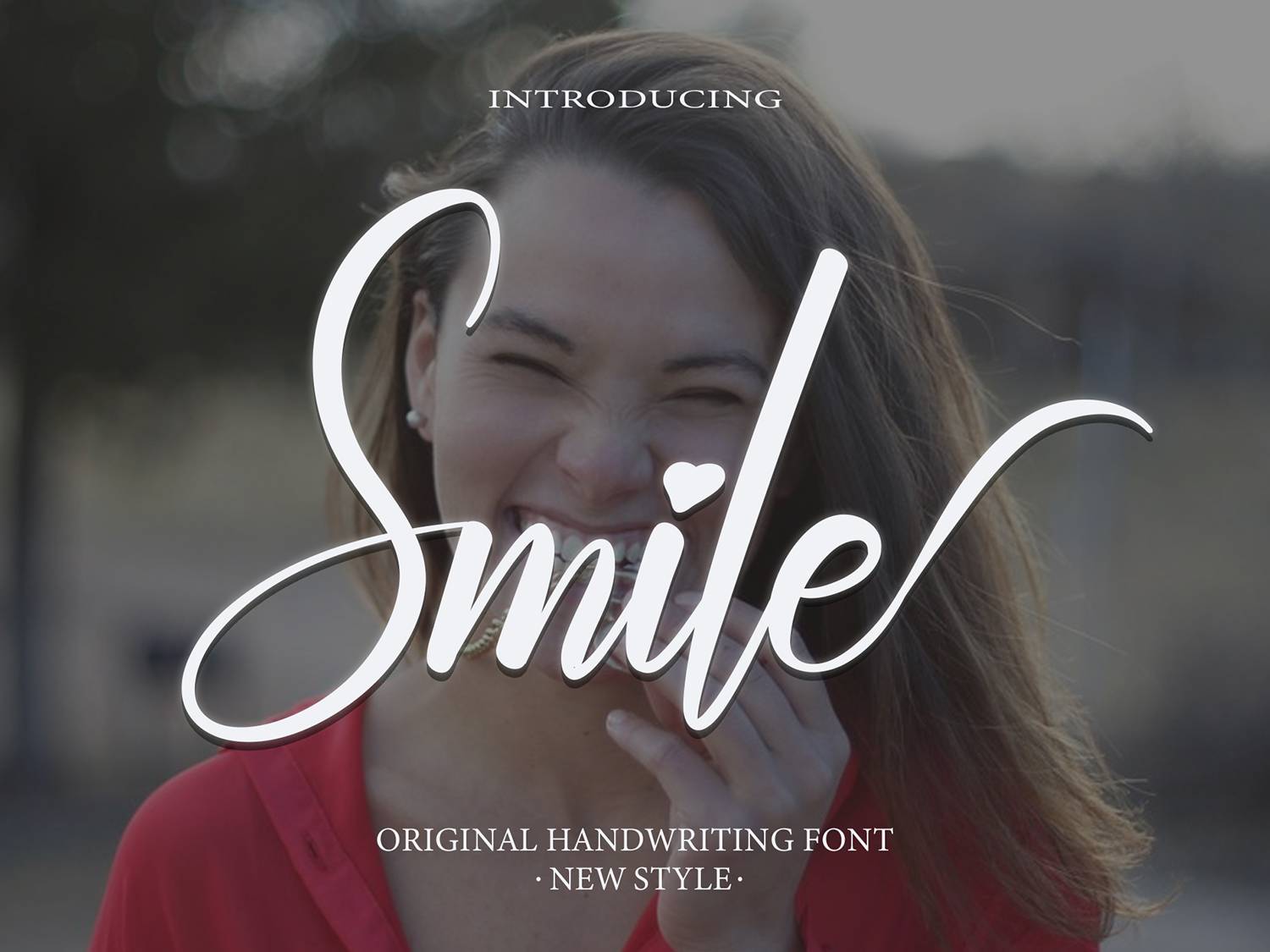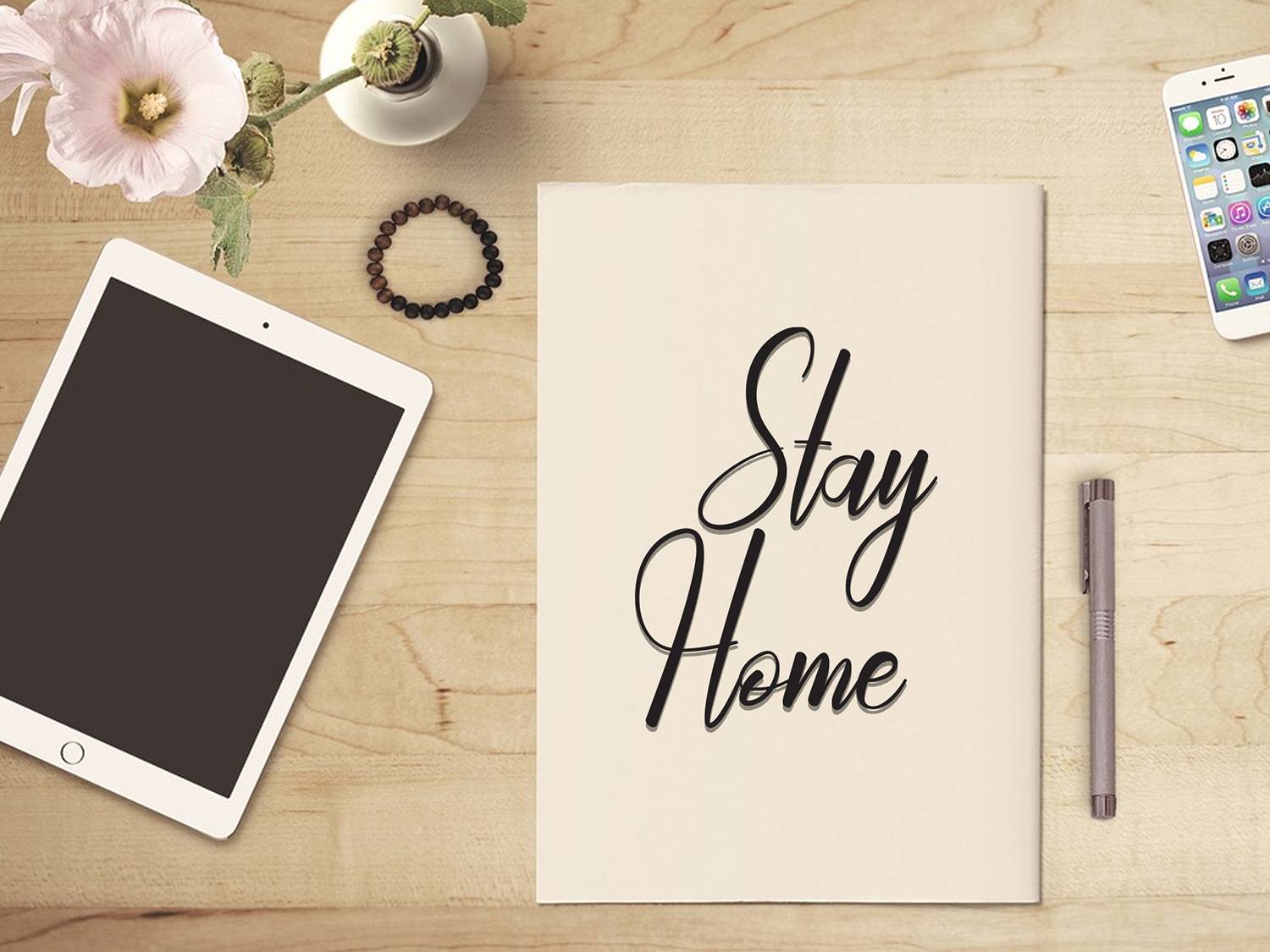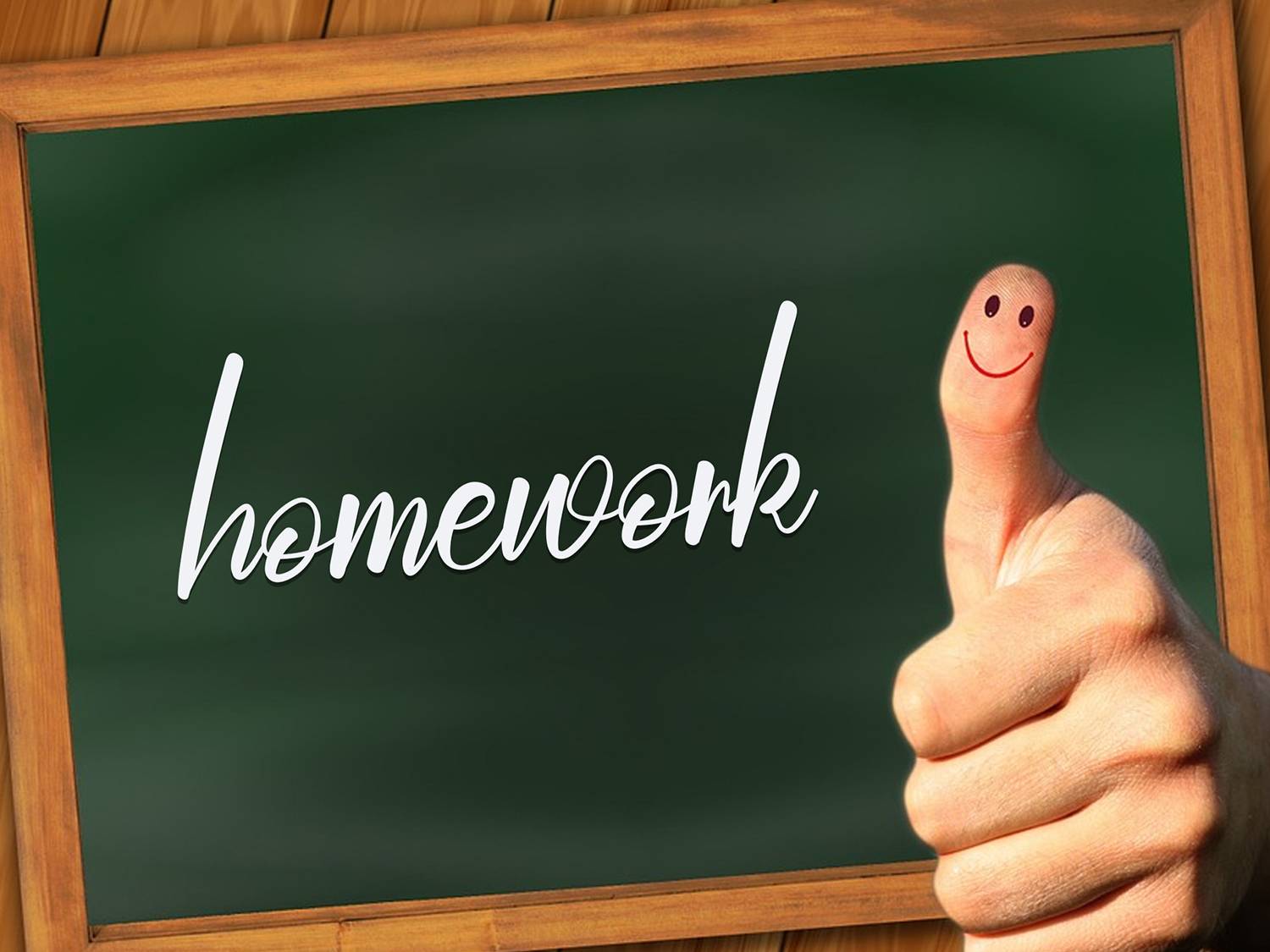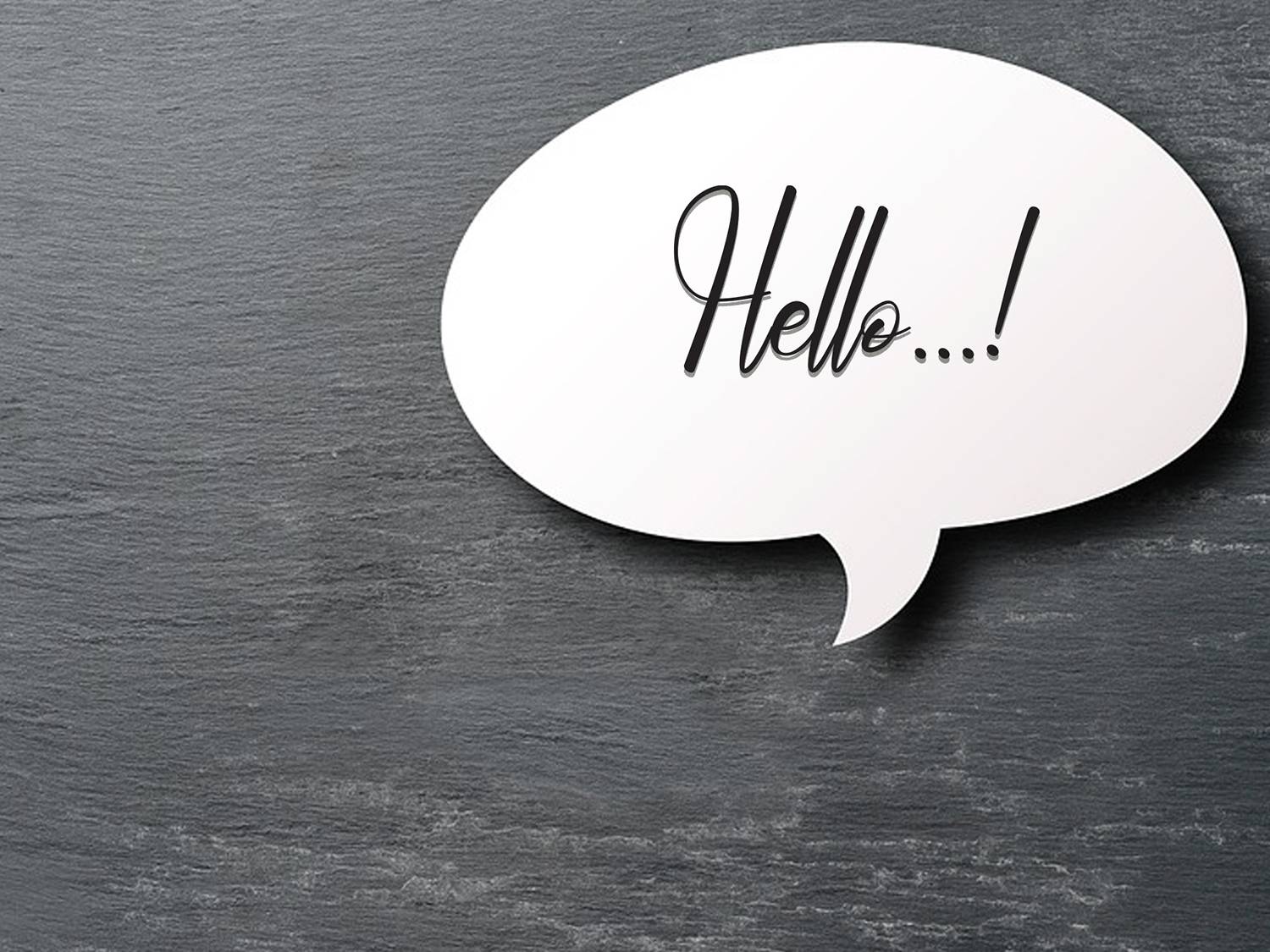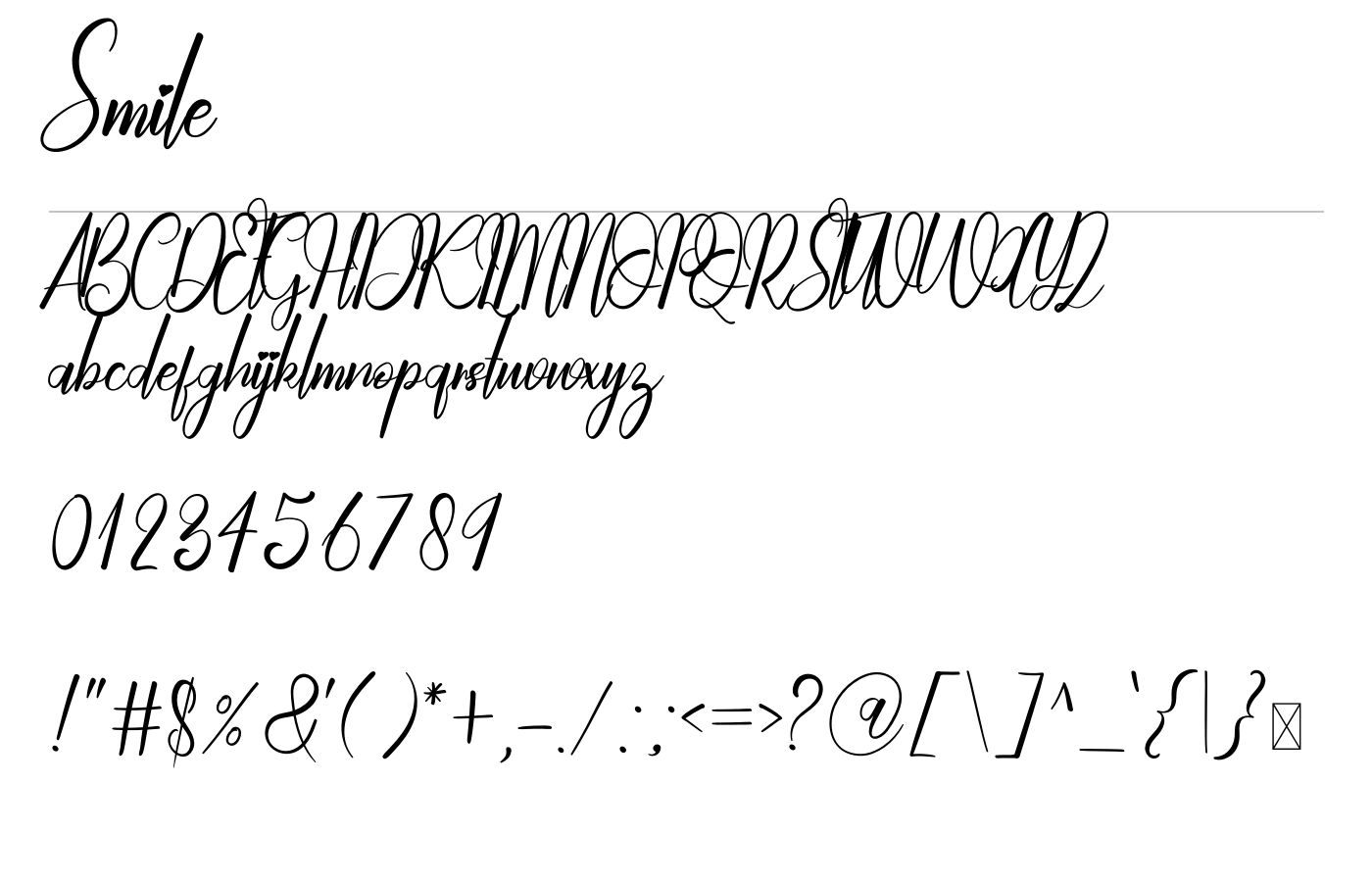
Smile Font is a delicate and elegant script typeface featuring slender, flowing strokes with a handwritten feel. Its tall, narrow letterforms and subtle curves create a graceful yet approachable style, making it perfect for feminine branding, wedding invitations, or any project seeking a romantic and stylish touch. This font works best in decorative headlines or logos where a personal, refined impression is desired.
Smile Font
About Smile Font